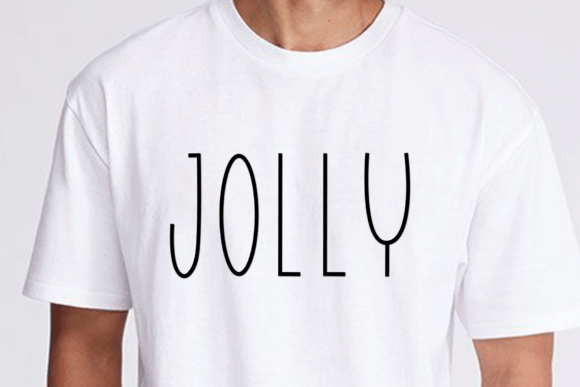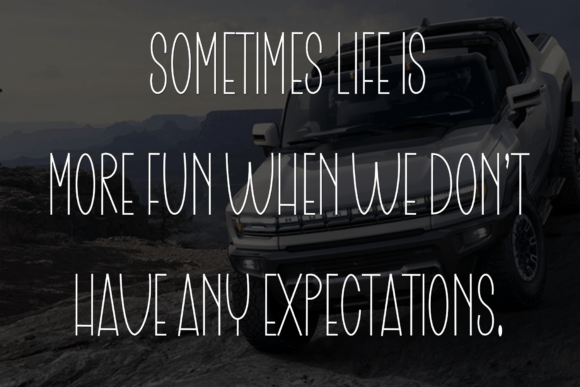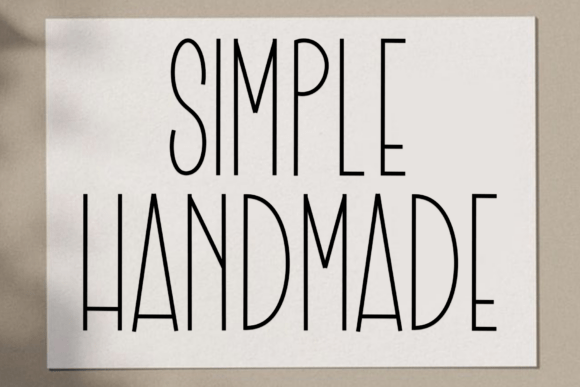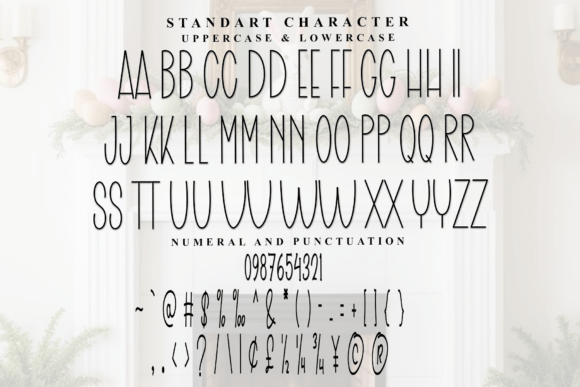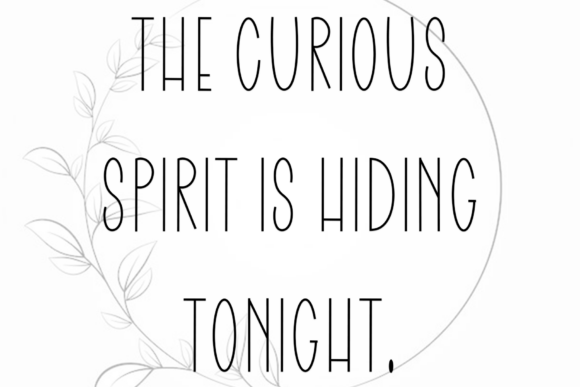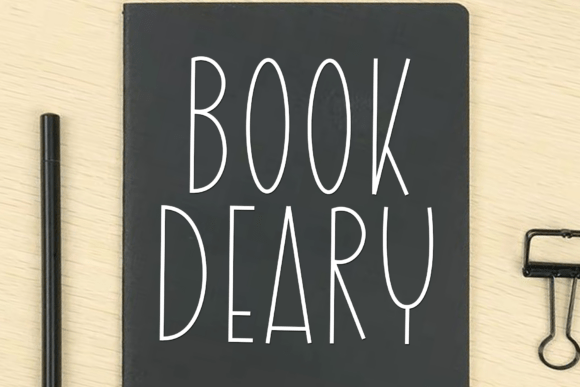
Introducing Chocolate Font: The Epitome of Elegance and Sophistication
Are you on the hunt for a font that exudes luxury, style, and sophistication? Look no further than Chocolate Font, a sleek and elegant display font that is sure to elevate your designs to new heights. With its ultra-tall, narrow letterforms, Chocolate Font is the perfect choice for high-end branding, fashion editorials, product packaging, and modern minimalist designs.
The Characteristics of Chocolate Font
Chocolate Font boasts a range of characteristics that make it the perfect choice for designers and crafters looking to add a touch of elegance to their work. Some of its key features include:
- Ultra-tall, narrow letterforms: Chocolate Font’s letterforms are designed to be tall and narrow, giving them a sleek and sophisticated look that is sure to turn heads.
- Sophisticated and stylish: With its elegant lines and refined curves, Chocolate Font is the perfect choice for designers looking to add a touch of luxury to their work.
- Perfect for high-end branding: Whether you’re working on a luxury brand or a high-end product, Chocolate Font is sure to deliver a refined and sophisticated impression.
- Versatile: Chocolate Font is perfect for a range of design applications, including fashion editorials, product packaging, and modern minimalist designs.
The Benefits of Using Chocolate Font
So why should you choose Chocolate Font for your next design project? Here are just a few benefits of using this elegant and sophisticated font:
- Adds a touch of luxury: With Chocolate Font, you can add a touch of luxury to your designs, making them stand out from the crowd.
- Elevates your brand: If you’re working on a branding project, Chocolate Font is sure to elevate your brand and give it a sophisticated, high-end feel.
- Perfect for fashion and beauty: Chocolate Font is a perfect choice for fashion and beauty brands, adding a touch of elegance and sophistication to your designs.
- Easy to use: Chocolate Font is easy to use and can be incorporated into a range of design applications, from print to digital.
How to Use Chocolate Font in Your Designs
So how can you use Chocolate Font in your designs? Here are a few ideas to get you started:
- Logos and branding: Use Chocolate Font to create a sophisticated and elegant logo that will elevate your brand.
- Fashion editorials: Add a touch of luxury to your fashion editorials with Chocolate Font, perfect for headlines and titles.
- Product packaging: Use Chocolate Font to add a touch of elegance to your product packaging, making your products stand out on store shelves.
- Web design: Incorporate Chocolate Font into your web design, perfect for headings and titles.
Tips and Tricks for Getting the Most Out of Chocolate Font
Here are a few tips and tricks for getting the most out of Chocolate Font:
- Use it sparingly: Chocolate Font is a bold and elegant font, so use it sparingly to add emphasis to your designs.
- Pair it with a sans-serif font: Pair Chocolate Font with a sans-serif font to create a striking contrast and add visual interest to your designs.
- Experiment with colors: Chocolate Font looks great in a range of colors, so experiment with different colors to find the perfect fit for your design.
In conclusion, Chocolate Font is a sleek and elegant display font that is sure to elevate your designs to new heights. With its ultra-tall, narrow letterforms and sophisticated style, it’s the perfect choice for high-end branding, fashion editorials, product packaging, and modern minimalist designs. Whether you’re a designer or crafter, Chocolate Font is a must-have font that is sure to deliver a refined and luxurious impression with a touch of boldness.